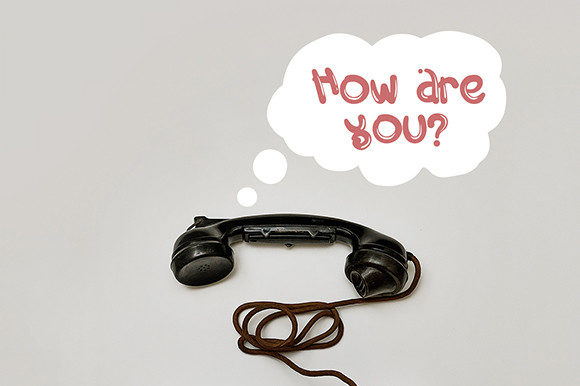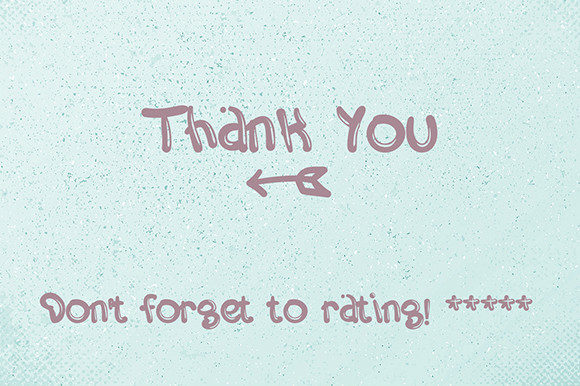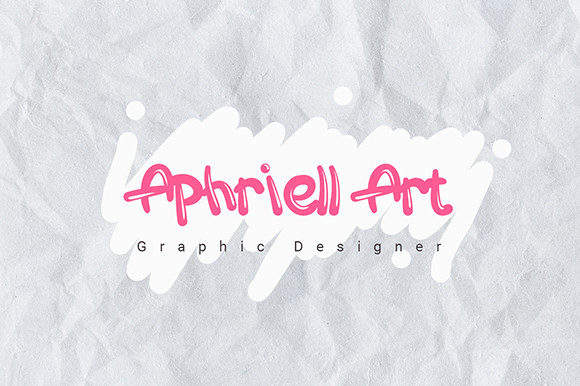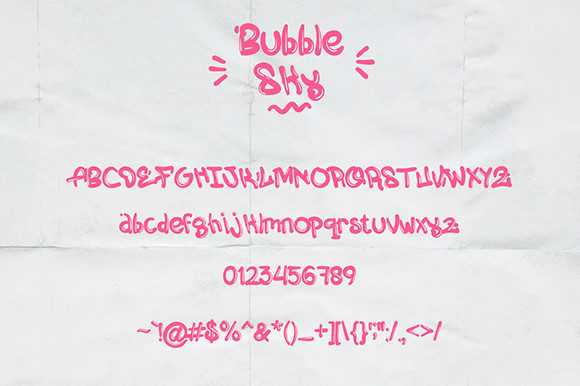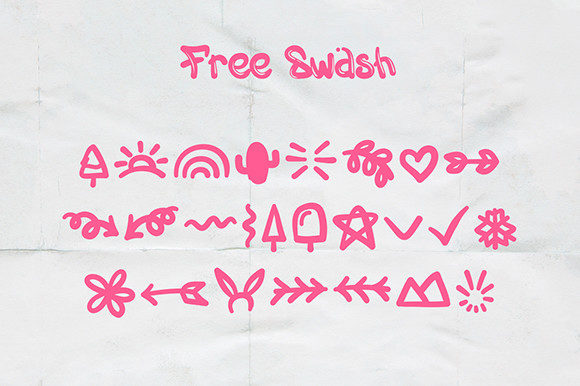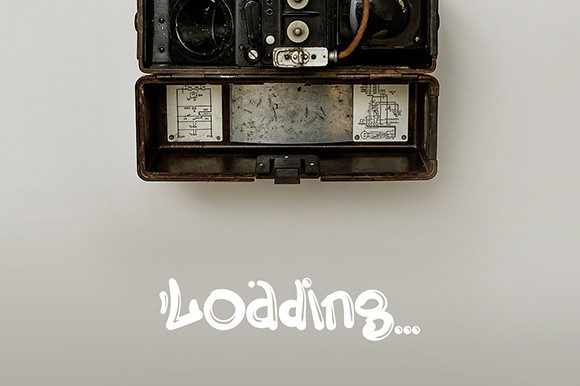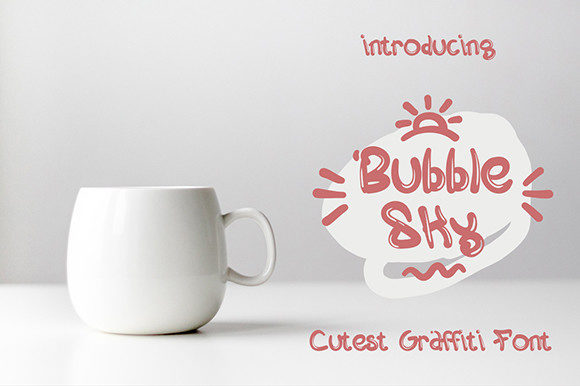
BubbleSky Font: The Ultimate Graffiti-Inspired Display Font for Urban Designs
Are you a designer or crafter looking for a font that can add a touch of urban coolness to your designs? Look no further than BubbleSky Font! This graffiti-inspired display font is perfect for creating eye-catching and stylish designs that are sure to stand out. In this article, we’ll take a closer look at BubbleSky Font, its features, and how you can use it to elevate your urban or casual designs.
What is BubbleSky Font?
BubbleSky Font is a cute yet cool display font that is inspired by graffiti art. Its unique and playful design makes it perfect for adding a touch of urban flair to your designs. The font is designed to be highly legible, making it easy to read and understand, even at large sizes.
Key Features of BubbleSky Font
- Graffiti-inspired design: BubbleSky Font is inspired by the vibrant and playful world of graffiti art. Its design is characterized by bold lines, bright colors, and a carefree spirit.
- Cute and cool: This font is not just cool, but also cute! Its playful design makes it perfect for designs that require a touch of whimsy and fun.
- Display font: BubbleSky Font is designed specifically for display purposes, making it perfect for headlines, titles, and other large-format text.
- Urban and casual designs: This font is ideal for urban or casual designs, including posters, flyers, brochures, and more.
How to Use BubbleSky Font in Your Designs
BubbleSky Font is a versatile font that can be used in a variety of design projects. Here are some ideas to get you started:
- Posters and flyers: Use BubbleSky Font to create eye-catching posters and flyers for events, promotions, or products.
- Social media graphics: Add a touch of urban coolness to your social media graphics, including Facebook posts, Instagram stories, and Twitter headers.
- Logos and branding: Use BubbleSky Font to create unique and memorable logos and branding materials for your business or organization.
- Signs and banners: This font is perfect for creating eye-catching signs and banners for events, sales, or promotions.
Tips for Getting the Most Out of BubbleSky Font
Here are some tips for getting the most out of BubbleSky Font:
- Use it boldly: BubbleSky Font is designed to be seen, so don’t be afraid to use it in bold and eye-catching ways.
- Experiment with colors: Graffiti art is known for its bright colors, so don’t be afraid to experiment with different color schemes and combinations.
- Pair it with other fonts: BubbleSky Font can be paired with other fonts to create interesting and dynamic typography.